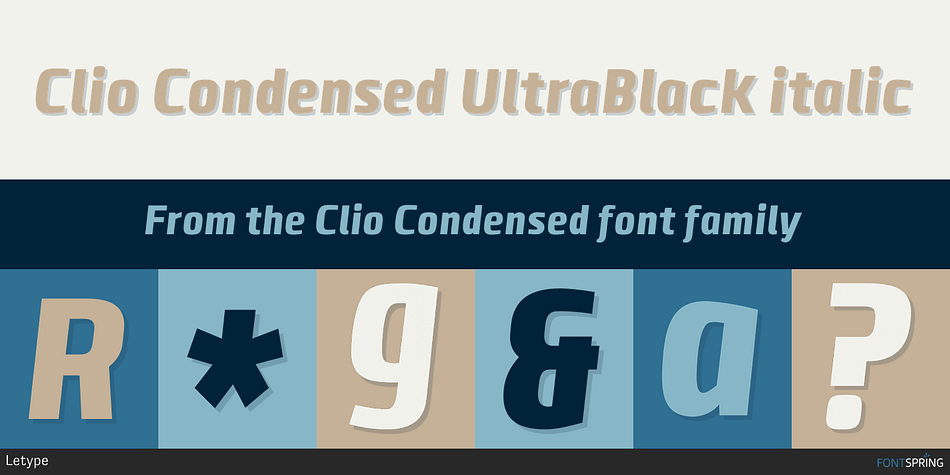
Clio Condensed is a sans serif font family. This typeface has twenty-four styles and was published by Letype.
Clio Condensed UltraBlack italic
Clio, Clio XS and Clio Condensed is a big family of 72 fonts. They were designed by Gabriel de Souza in 2012. They are simple and stylish and they have the ideal appearance to your work.
They also feature italics, obliques, great language support and flexibility.
While these fonts are very versatile and can be used in a variety of formats, they look their best in display uses or for logos and trademarks.